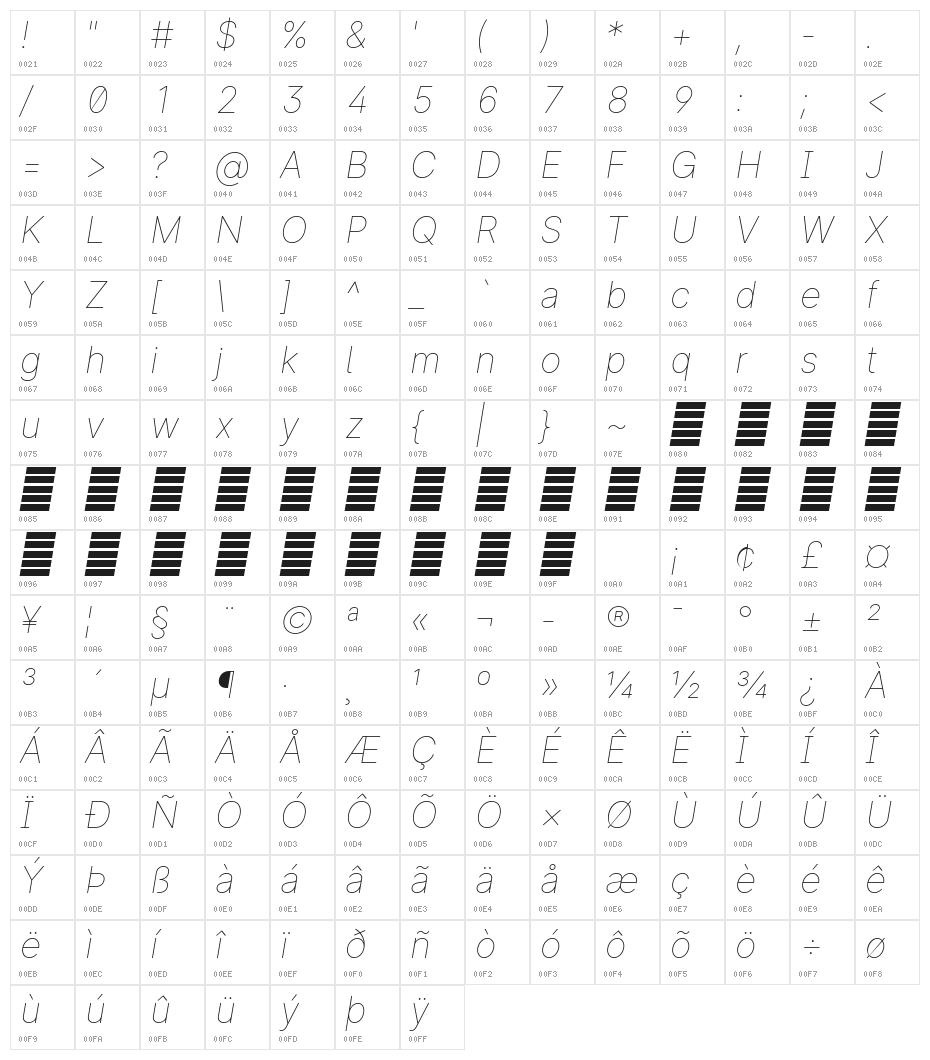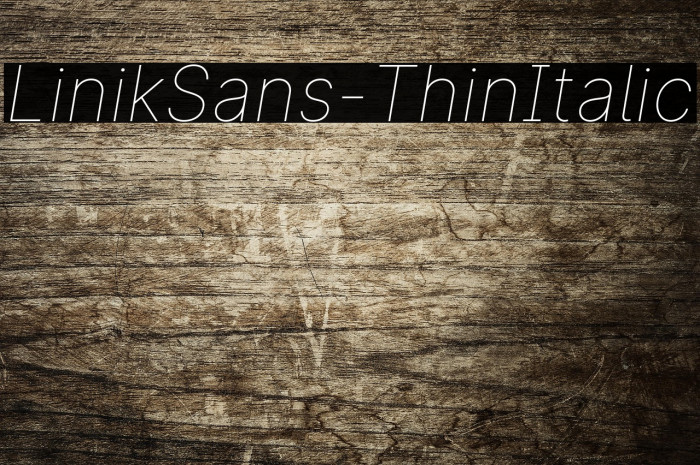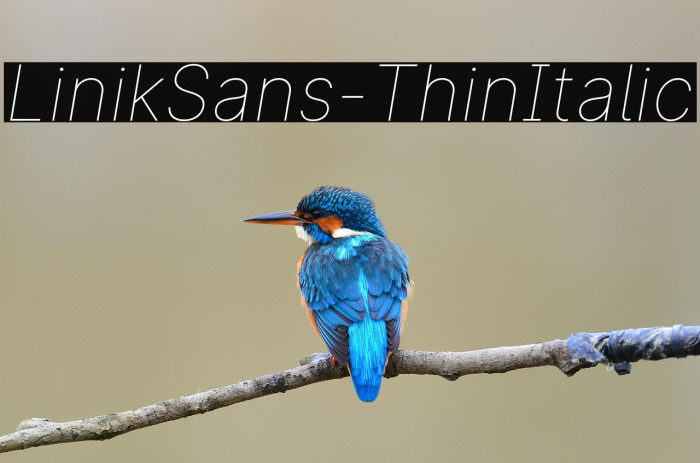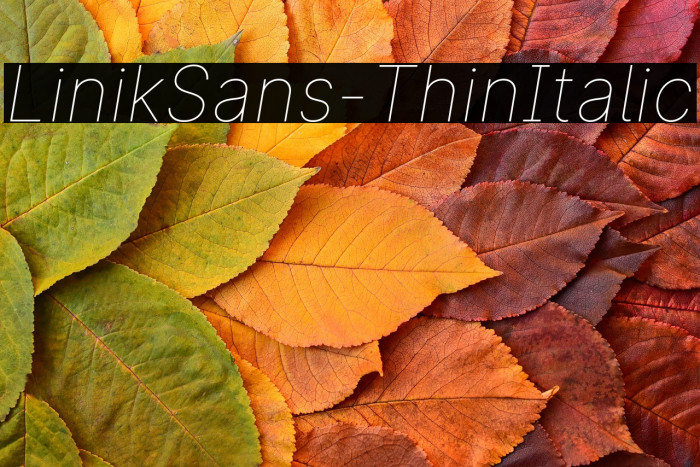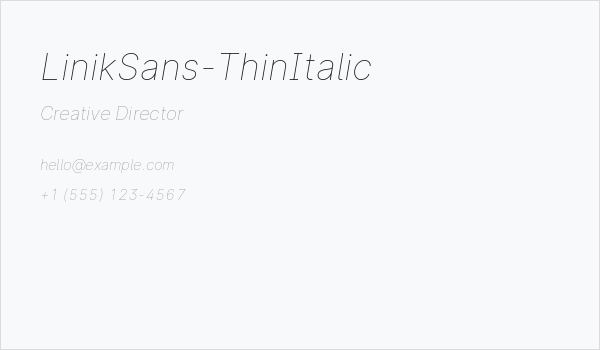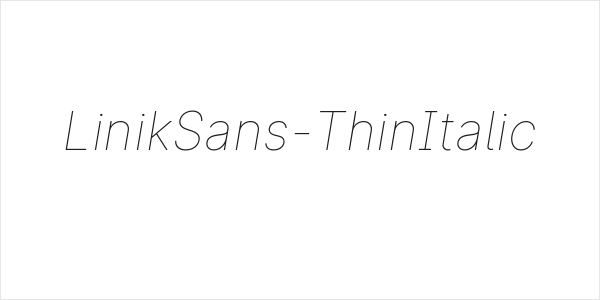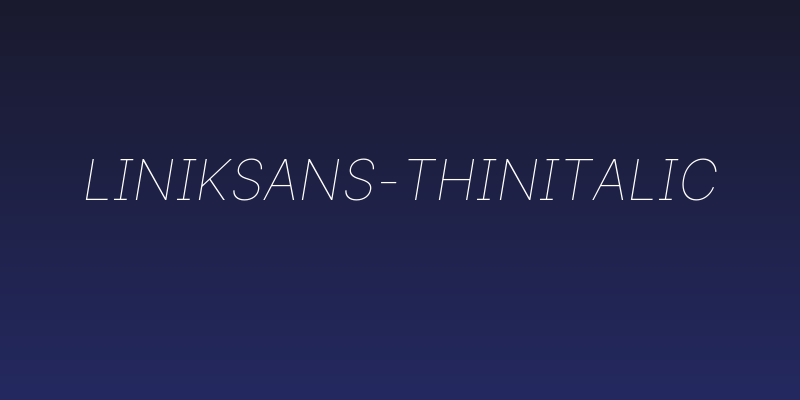
LinikSans-ThinItalic Font
LinikSans-ThinItalic Description
This font features a sleek and modern design with thin, elegant strokes that give it a sophisticated appearance. The italic style adds a dynamic and fluid quality, making it suitable for contemporary and stylish applications. The characters are well-spaced, ensuring readability while maintaining a minimalist aesthetic. The font's clean lines and subtle curves create a sense of refinement and elegance, making it ideal for projects that require a touch of modernity and class. Its versatility allows it to be used in various contexts, from digital media to print, where a light and airy feel is desired.
| Proposed Projects | Ideal for fashion magazines, modern branding, elegant invitations, and minimalist web design. |